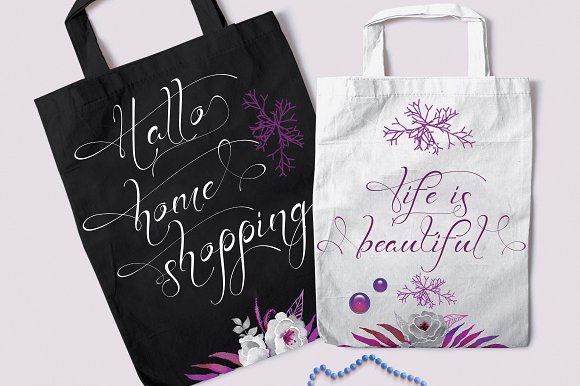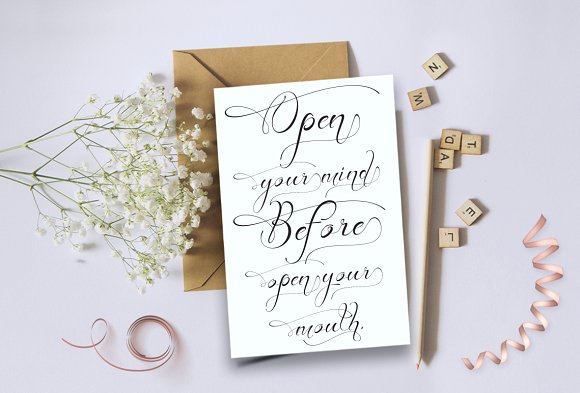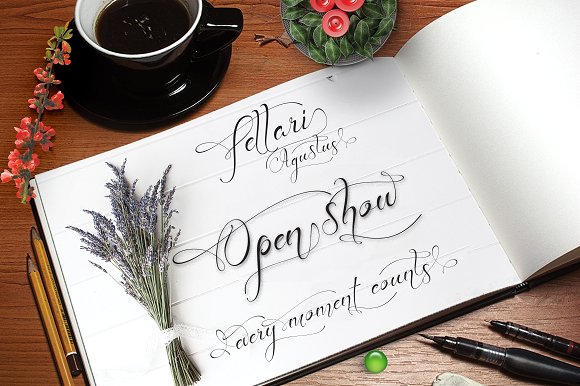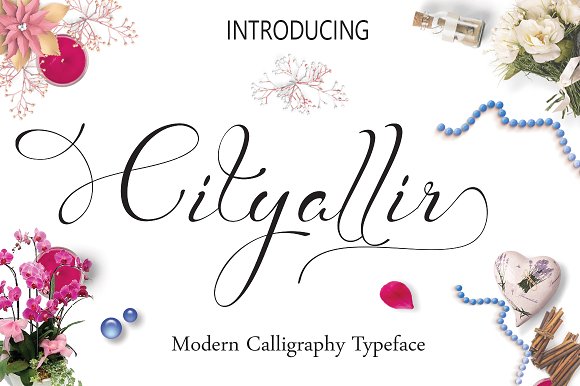
Cityallir Script
Cityallir : Is a hand calligraphy, smooth, modern and clasik, calligraphy wavy, which was created to meet the needs of your next design project. Cityallir Script , Can used for various purposes. such as the title, signature, logo, correspondence, wedding invitations, letterhead, signage, labels, newsletters, posters, badges, etc.